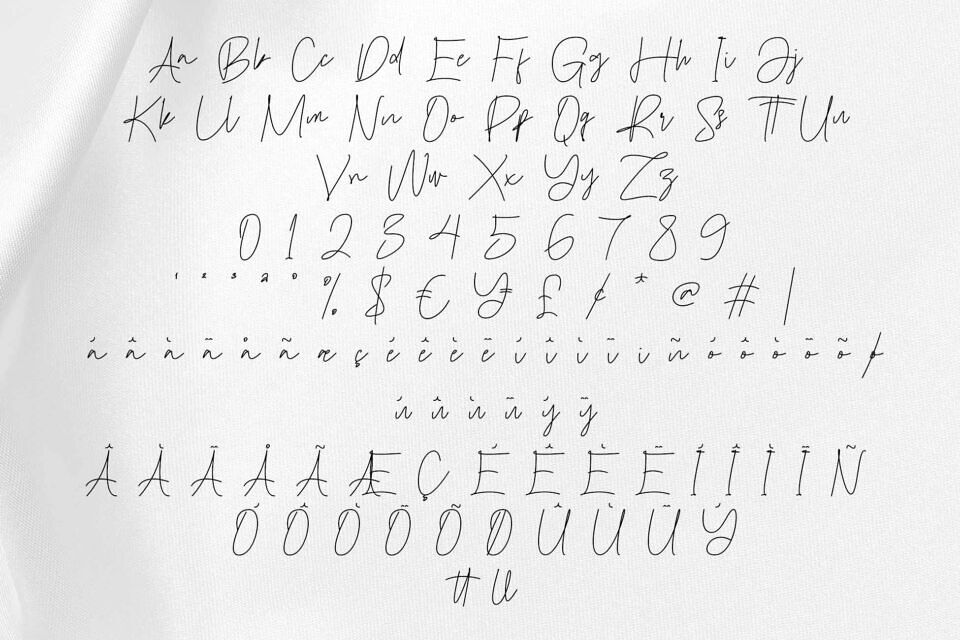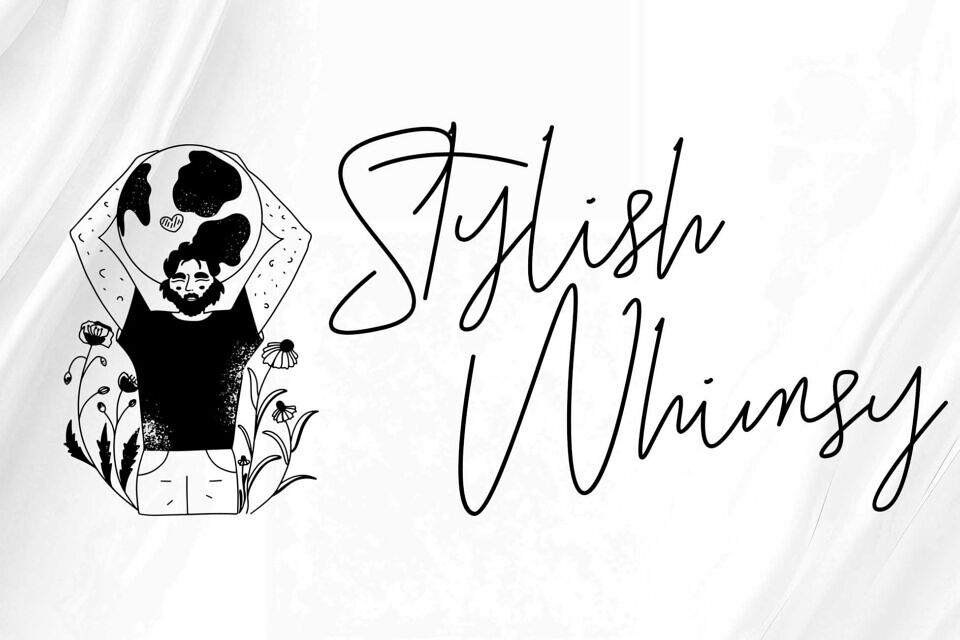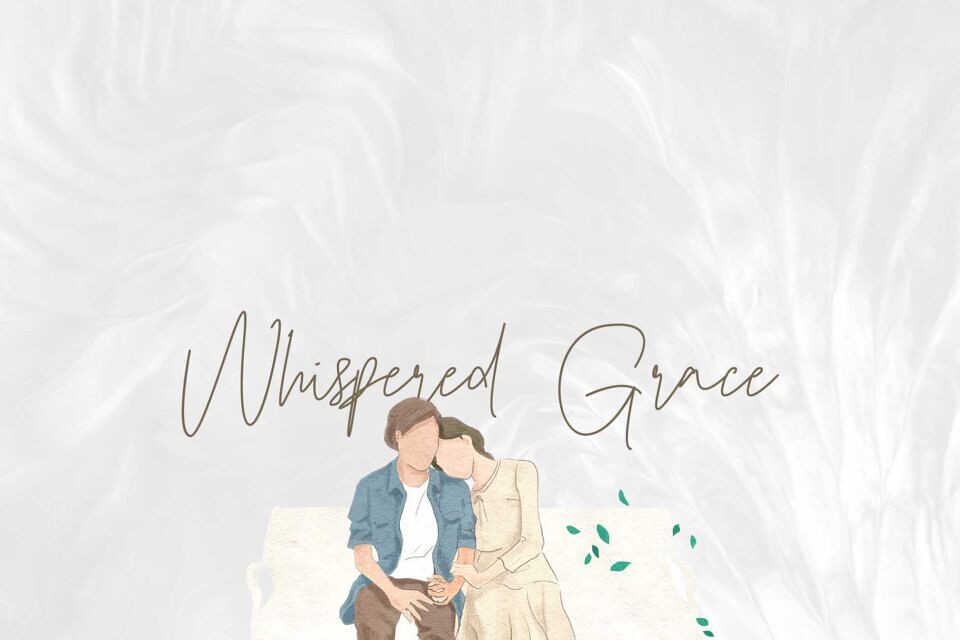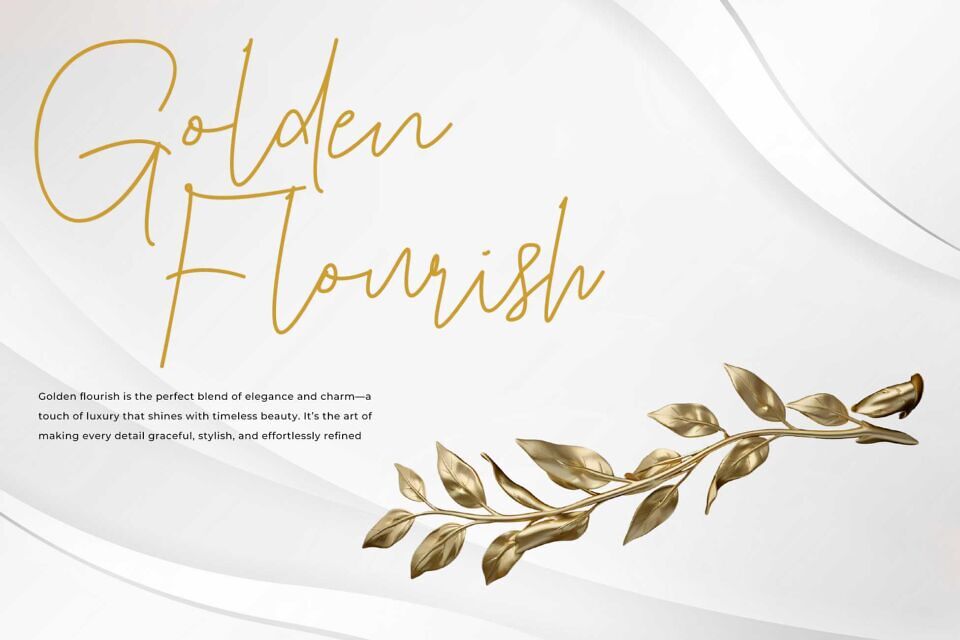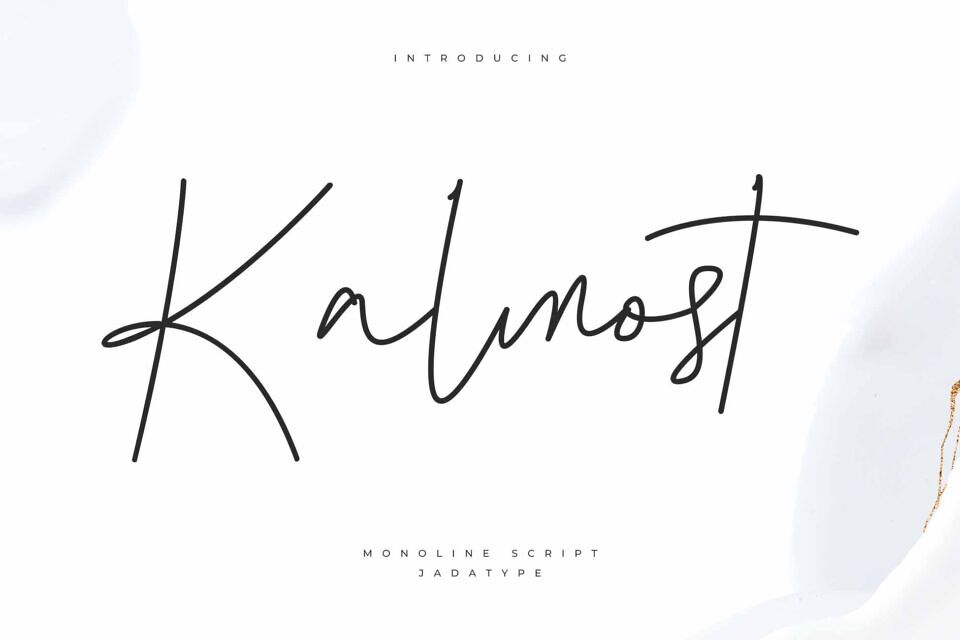
Kalmost Font
Kalmost is a font with a stylish script monoline. Suitable for photography, social media, music cover, branding, products, handwritten, and so on. Contains standard English letters, numbers, punctuation, and several accents that support multilingualism.